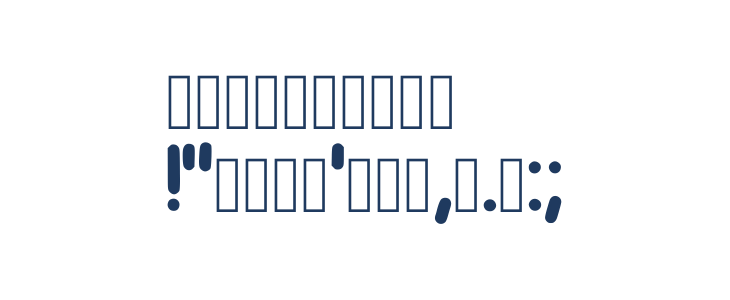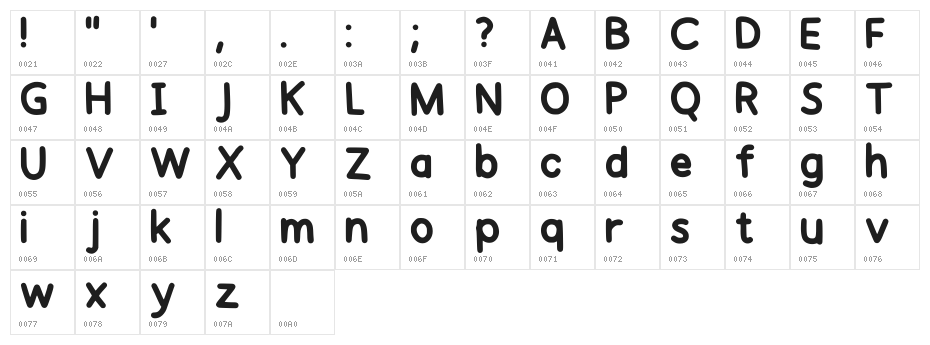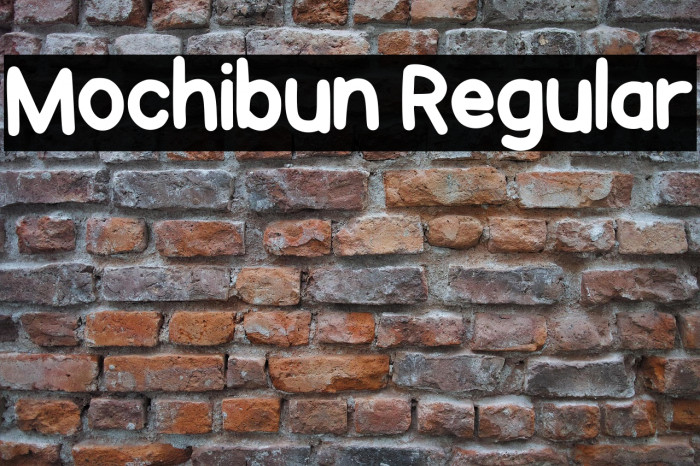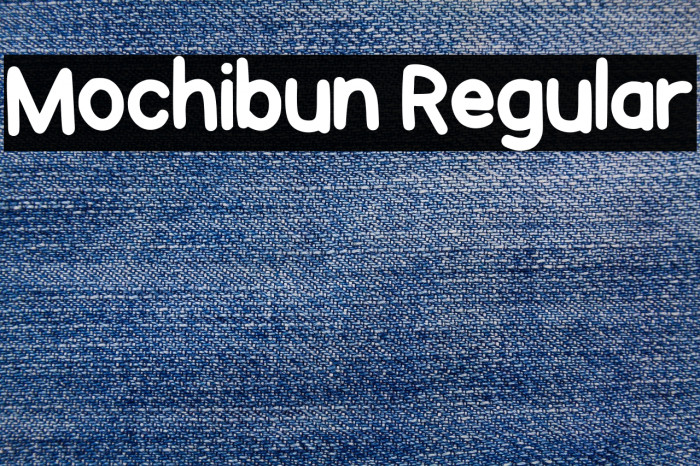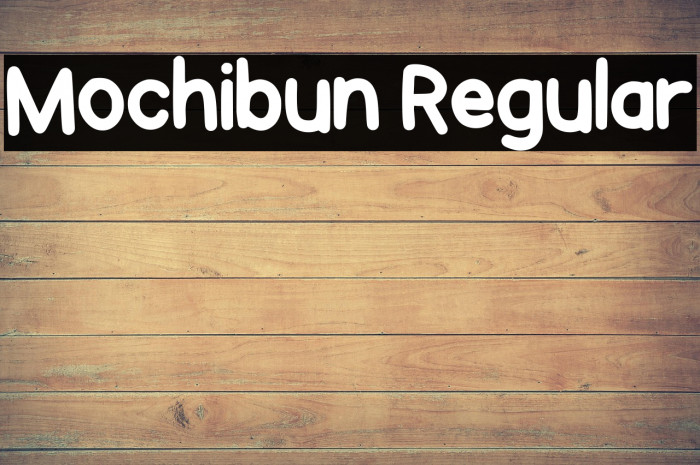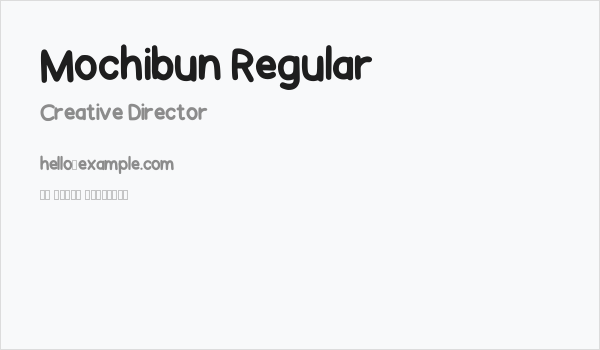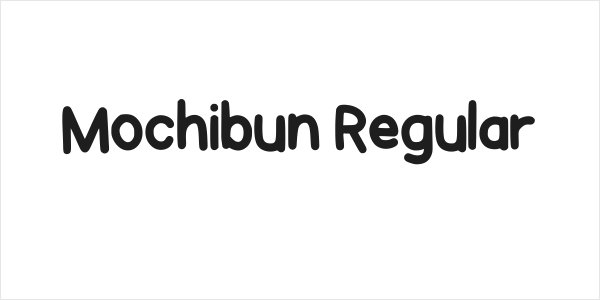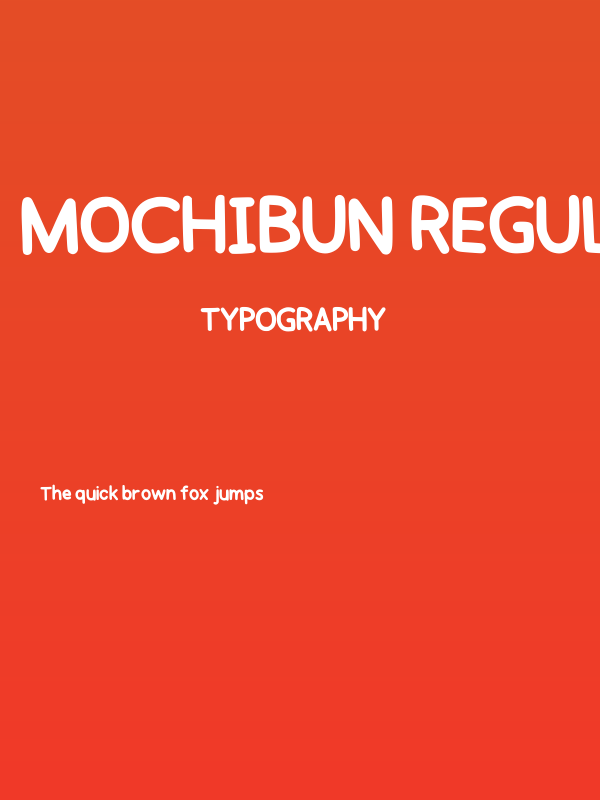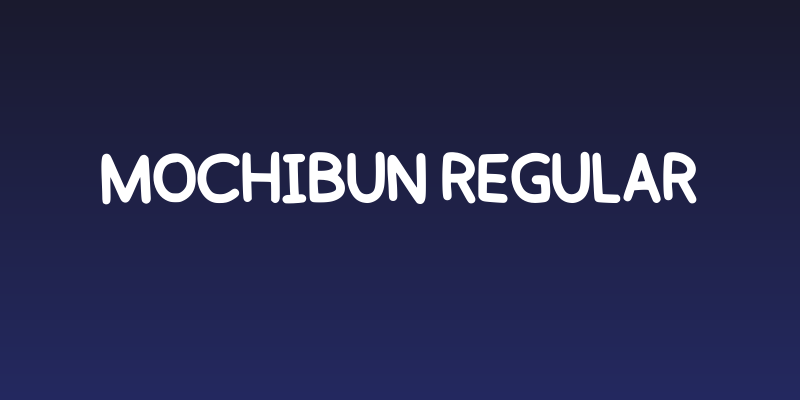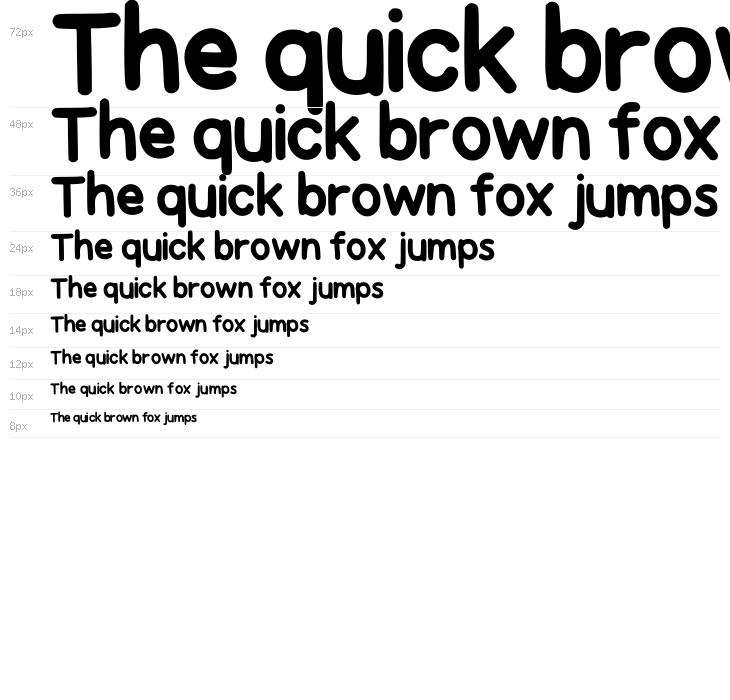
Mochibun Regular Font
Mochibun Regular Description
This font features a playful and rounded style, characterized by its smooth curves and friendly appearance. The letters are bold and slightly condensed, giving a sense of warmth and approachability. The lowercase letters maintain a consistent height, while the uppercase letters are slightly taller, providing a balanced look. The numbers and special characters follow the same rounded and bold design, ensuring uniformity across all glyphs. This font is ideal for projects that require a casual and inviting tone, such as children's books, playful branding, or informal communication.